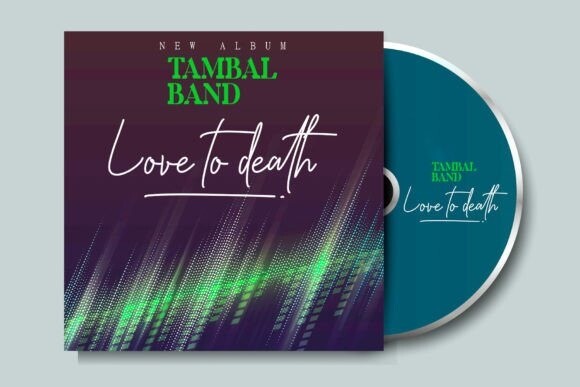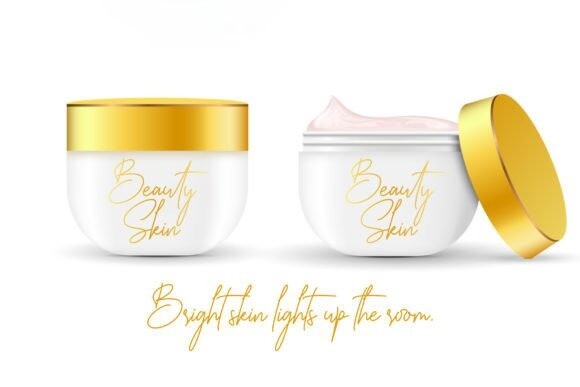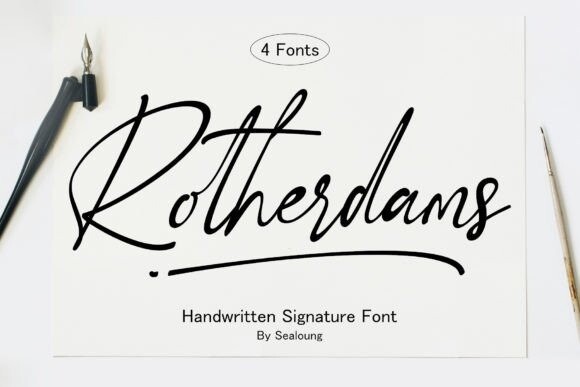
Rotherdams Font
Rotherdams Font – Handwritten Signature Font is a distinctive and elegant typeface, meticulously crafted to evoke a personal touch and the characteristics of a signature. Featuring an artistic design, the font exudes the essence of a hand, conveying both beauty and authenticity.
What sets Rotherdams Handwritten Signature Font apart is its smooth lines and natural hand flow, creating a warm and friendly personality. This font proves to be versatile and easy to use, making it suitable for a wide range of design applications, including greeting cards, invitations, electronic signatures, and various other graphic design projects.
The font’s clean and clear design enhances its adaptability, allowing it to seamlessly integrate into diverse design contexts while maintaining its inherent elegance.
Rotherdams Handwritten Signature Font is an ideal choice for those seeking a unique and personal touch in their design endeavors, introducing a creative and distinctive element to every project involving typography.